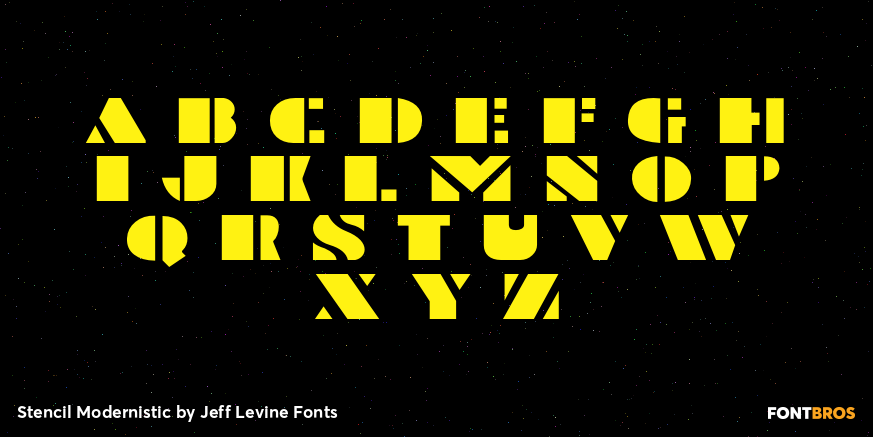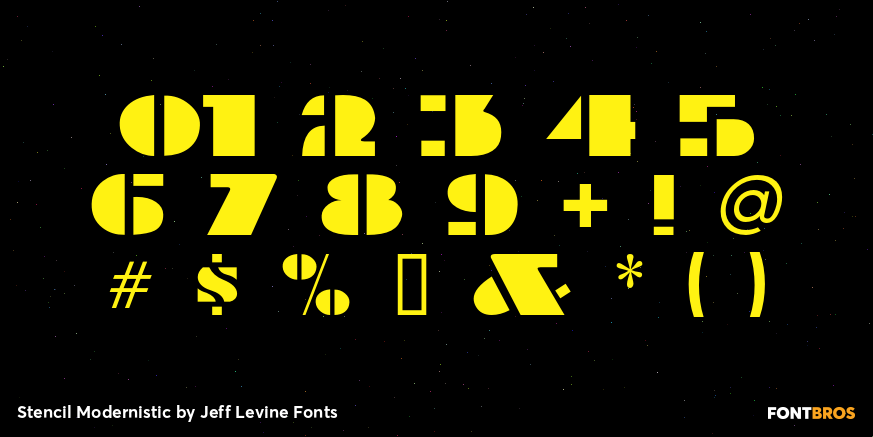
Stencil Modernistic
Stencil Modernistic JNL was modeled directly from an early 1960s lettering stencil that favored the Art Deco style. There is minimum kerning due to the nature of this typeface, so designers should use their own judgement when working with it.